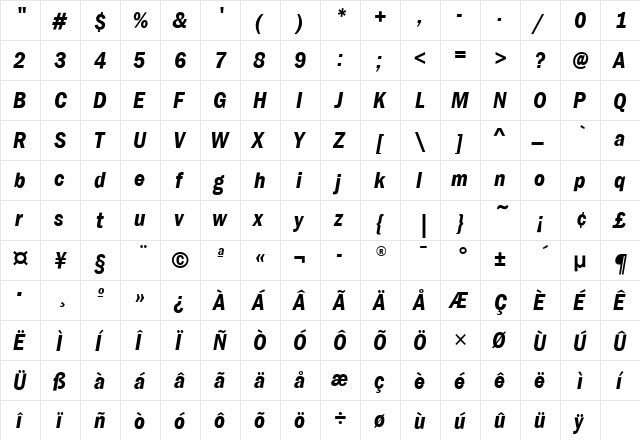
FranklinGotCdITC Demi Italic Font Preview
FranklinGotCdITC Demi Italic
Design Context for FranklinGotCdITC Typeface
FranklinGotCdITC offers clean, dependable letterforms without strong stylistic allegiance, making it a practical choice for designers who need flexibility. The slanted form adds forward momentum and visual energy.
Pro Tip: Use FranklinGotCdITC for emphasis, pull quotes, and subheadings where its slanted energy can add rhythm to the layout.